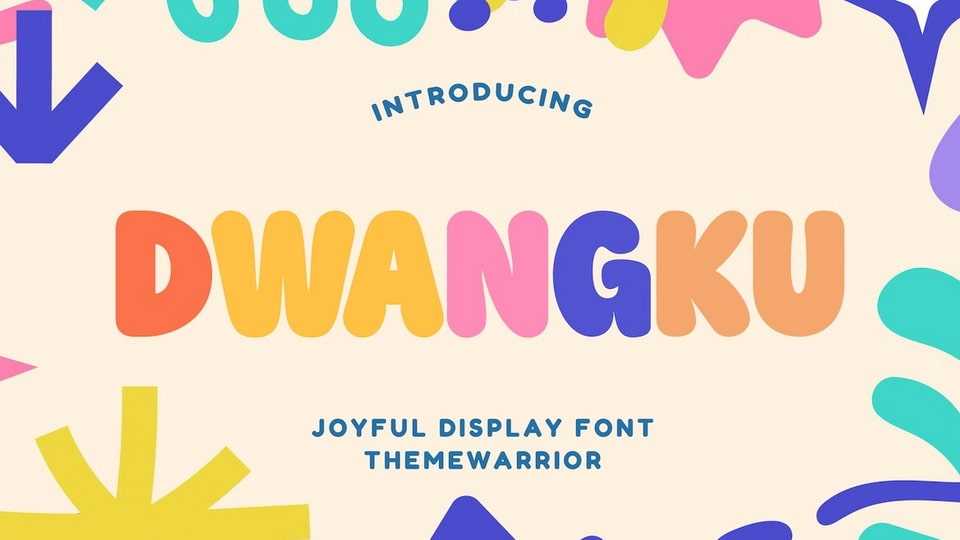
Download Dwangku font, a typeface that brings a delightful and friendly vibe to any project. Whether you’re working on children’s books, party invitations, or playful poster.